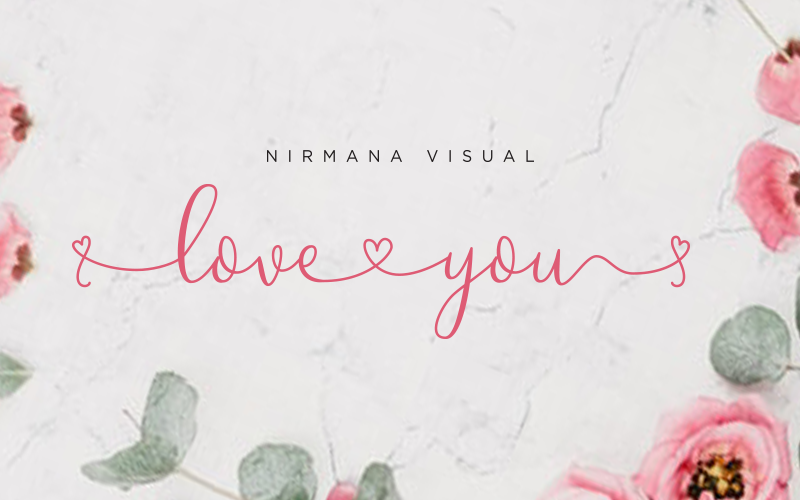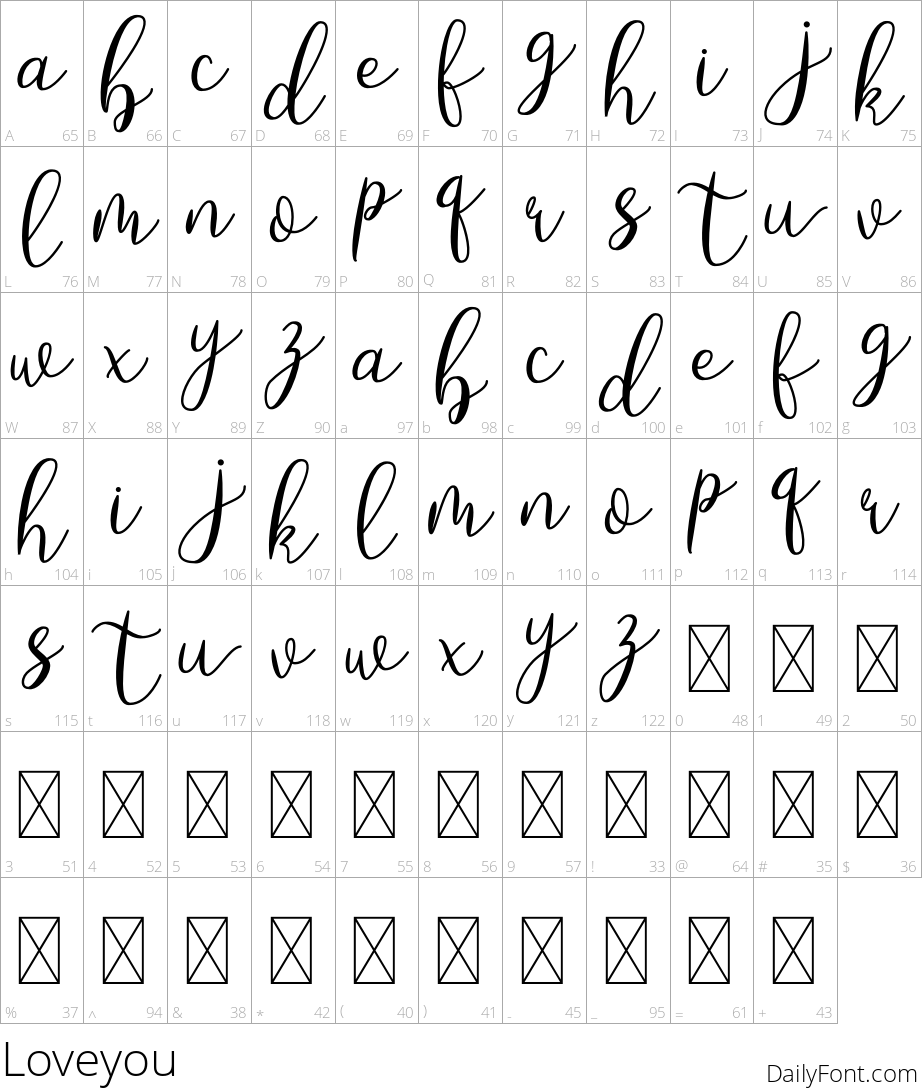
Loveyou
Introducing Loveyou, a stunning modern calligraphy font that brings a touch of romance to your creative projects. With its elegant curves and flowing lines, Loveyou is perfect for invitations, greeting cards, and personal branding. Immerse your audience in a world of love and creativity as this font captures the heartfelt essence of your message.
What makes Loveyou truly unique are its specially designed heart characters, which add an extra layer of charm to your designs. Whether you're crafting a memorable wedding invitation or a sweet note for a loved one, Loveyou ensures that your words resonate with warmth and affection. Suitable for both digital and print applications, this versatile font is a must-have for designers, crafters, and anyone looking to sprinkle a little love into their work.
Elevate your projects with Loveyou and inspire others with your creativity. Discover how this beautiful font can transform your designs and make every message feel special.